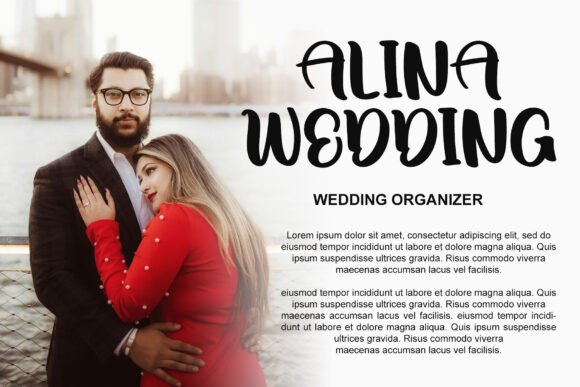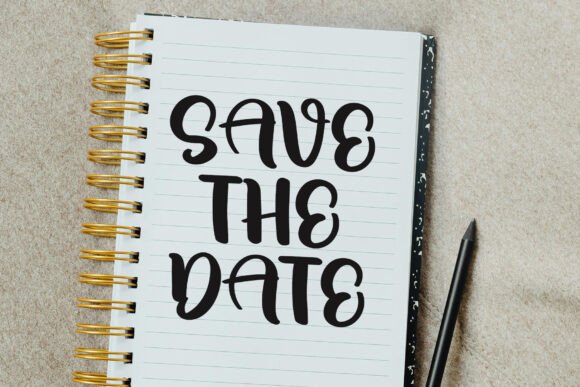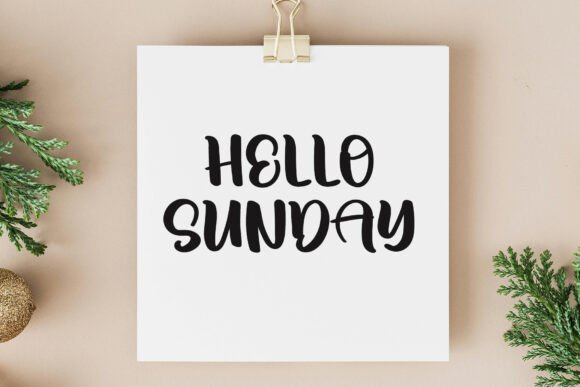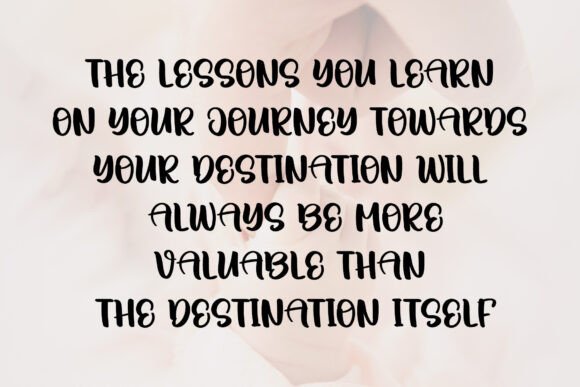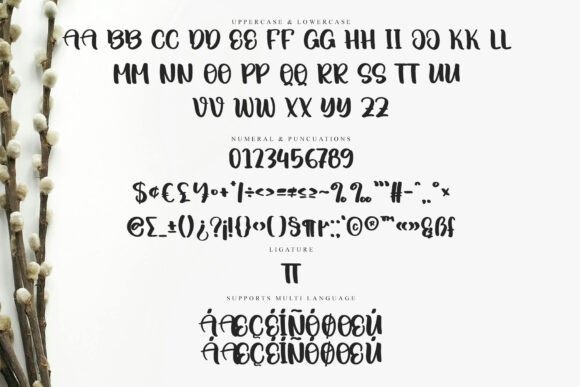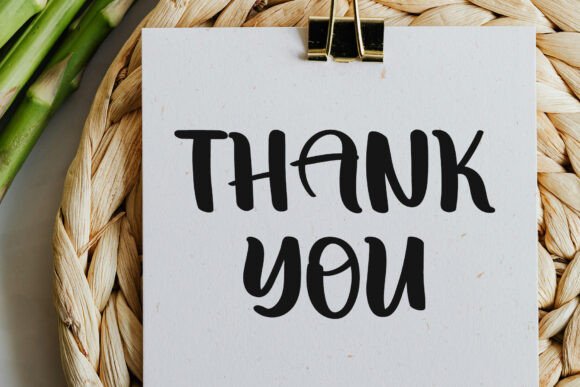
The Designer’s Delight: Unlocking the Power of Booster Handwritten Font
Booster Handwritten Font has quickly become one of my go-to fonts for bold and eye-catching designs. Here’s what I love about it:
- ✨ Unique letterforms that add a touch of mystery and sophistication
- ✅ Perfect blend of strength and elegance
- 💫 Highly versatile and suitable for various design projects
- 🎨 Beautiful OpenType features and glyphs to enhance your designs
While Booster Handwritten Font is amazing, there are a few quirks to be aware of:
- ⚠️ Limited availability of stylistic alternates, but still offers a range of glyphs
The Story Behind Booster Handwritten Font
Booster Handwritten Font was created by a talented type designer who wanted to craft a font that would add a sense of wonder and sophistication to any project. Inspired by the beauty of handwritten scripts and the elegance of refined typography, Booster Handwritten Font was born. With its unique letterforms and touch of mystery, this font has quickly become a favorite among designers and crafters.
| Font Name | Booster Handwritten Font |
| What makes Booster Handwritten Font unique? | Booster Handwritten Font features unique letterforms that combine strength and elegance, making it perfect for bold and eye-catching designs. |
| Is Booster Handwritten Font suitable for body text? | While Booster Handwritten Font is beautiful, it’s best suited for headings and titles. For body text, consider using a clearer, more legible font. |